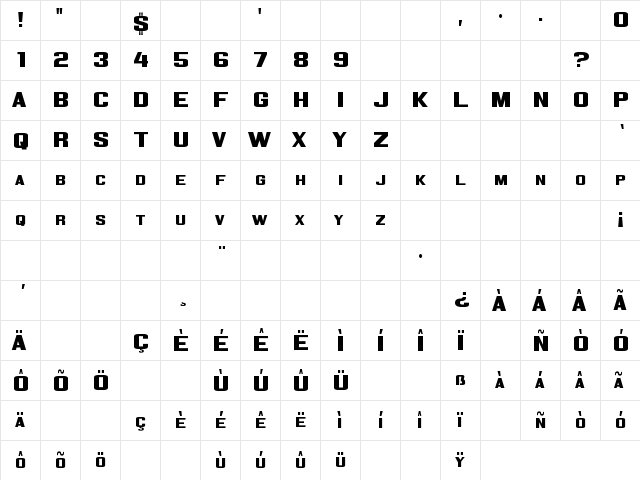
Corporate Regular
Design Context for Corporate Typeface
Corporate takes a measured approach to typography — its balanced proportions and neutral character make it a reliable workhorse for both digital and print work.